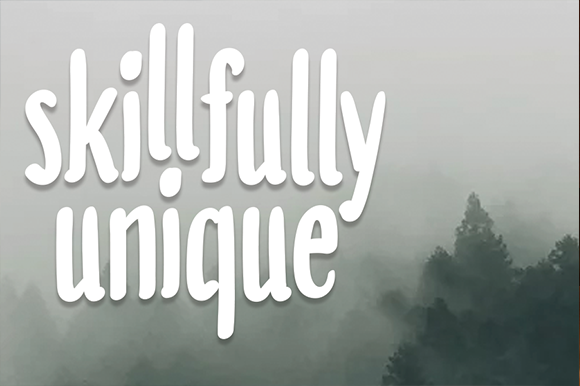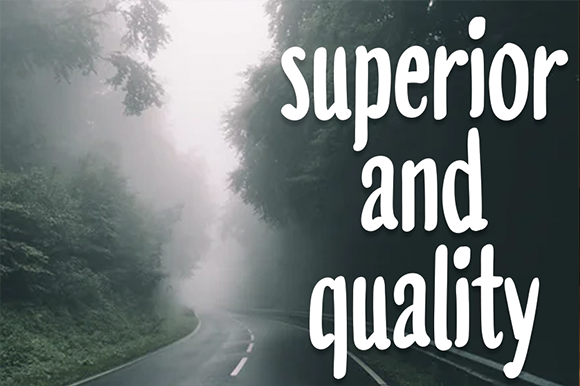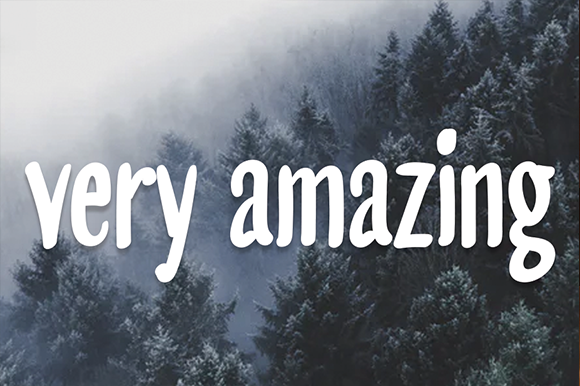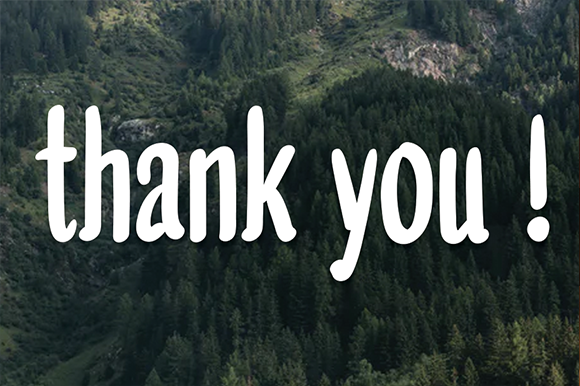
Smart Fresh Font
About Smart Fresh Font
Smart Fresh is a cute and casual handwritten font with an incredibly friendly feel. Whether you’re looking for fonts for Instagram or calligraphy scripts for DIY projects, this font will turn any creative idea into a true piece of art!